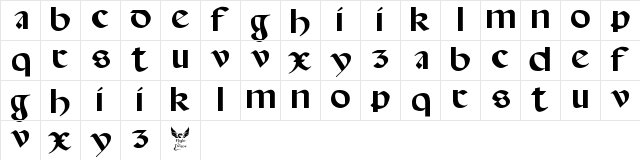
Spanish Round Bookhand, 16th c. Regular
Design Context for Spanish Round Bookhand, 16th c. Typeface
Spanish Round Bookhand, 16th c. flows with the natural rhythm of handwritten lettering, making it ideal for designs that call for warmth and personal expression.
Font Pairing: Combine Spanish Round Bookhand, 16th c. with a simple geometric sans for maximum contrast — the tension between flowing curves and clean structure is a classic typographic pairing.
Pro Tip: Pair Spanish Round Bookhand, 16th c. with a clean sans-serif for supporting text. The contrast between fluid script and geometric structure creates an elegant typographic hierarchy.